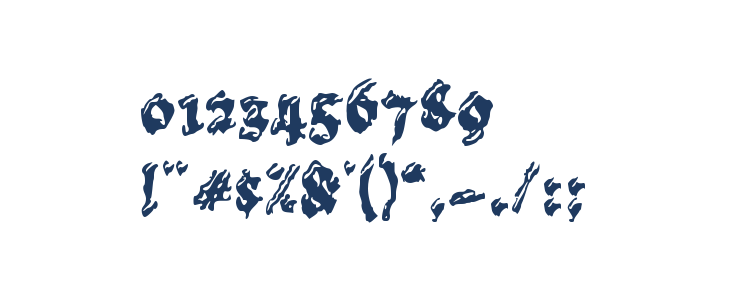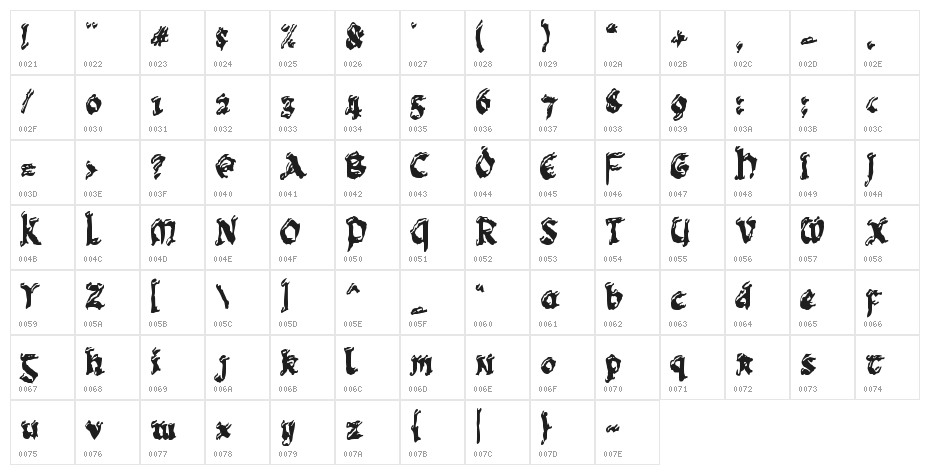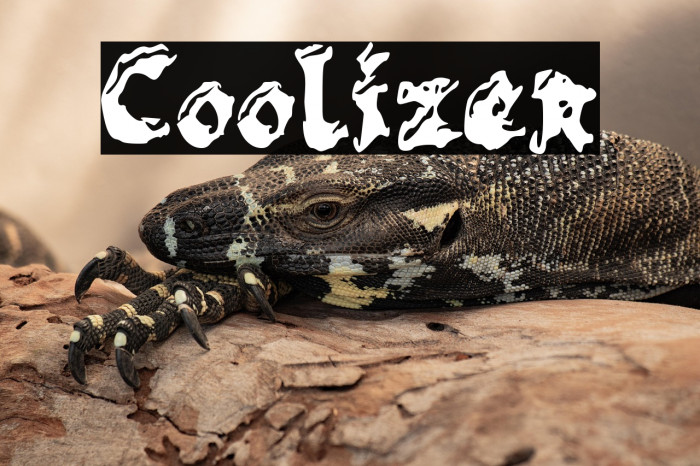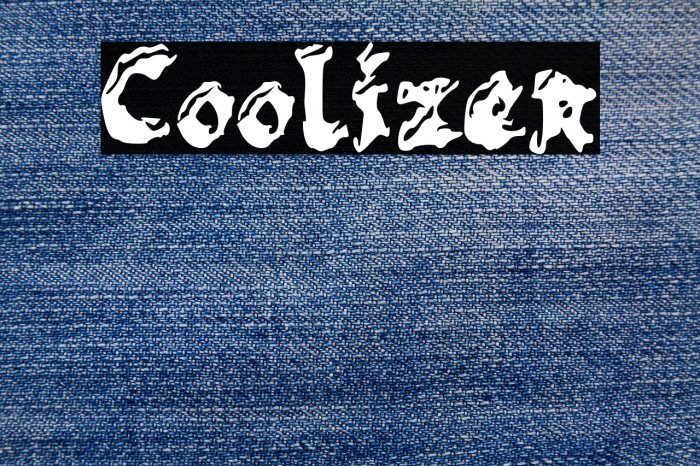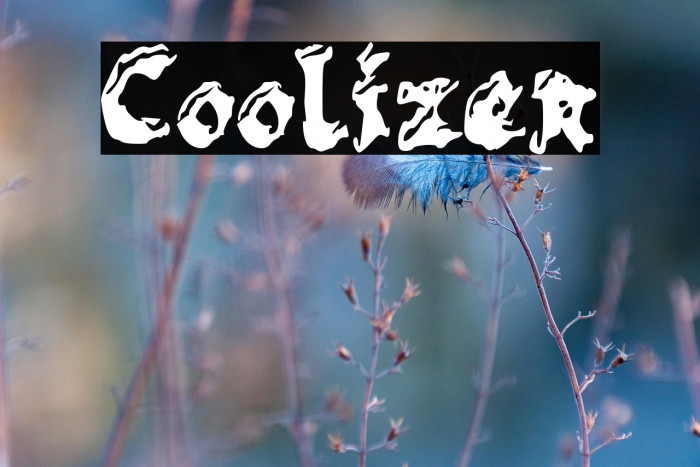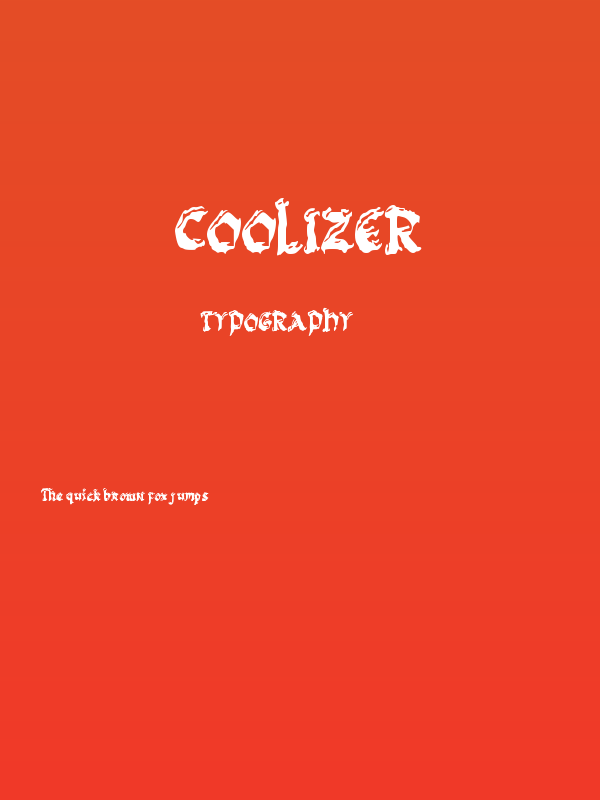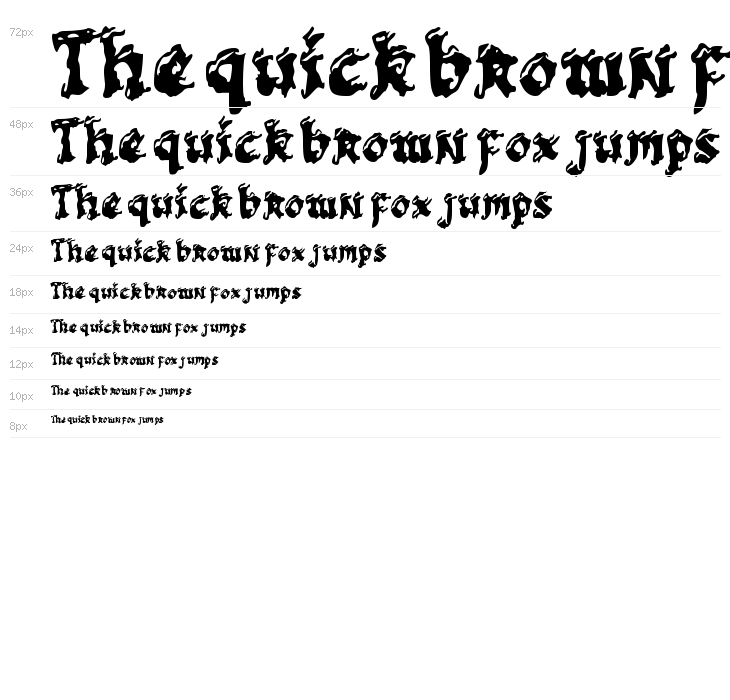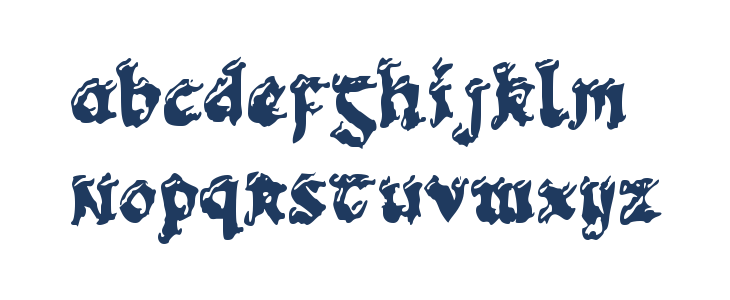
Coolizer Font
✎ Gothic
Coolizer Description
This font features a bold and dramatic style with a distinct Gothic influence. The characters are heavily stylized with sharp edges and intricate detailing, giving them a rugged and textured appearance. The uppercase and lowercase letters maintain a consistent design, with a strong emphasis on angular forms and decorative elements. The numerals and special characters follow the same aesthetic, ensuring a cohesive look across all glyphs. This font's unique style makes it stand out, ideal for projects that require a bold and eye-catching typeface.
| Use Case | Logos, Headlines, Posters |
| Proposed Projects | Ideal for album covers, posters, branding for edgy or alternative products, and any design requiring a dramatic flair. |